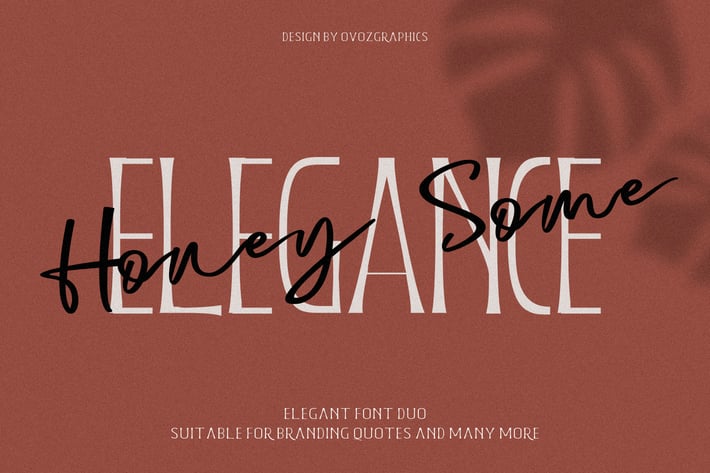
Honey Some Script Font
Honeysome Script font, is our new item that suitable for your team logo, or community logo.
Great for
Logo, Sticker, Jersey, Invitation Card, Brochure, etc.